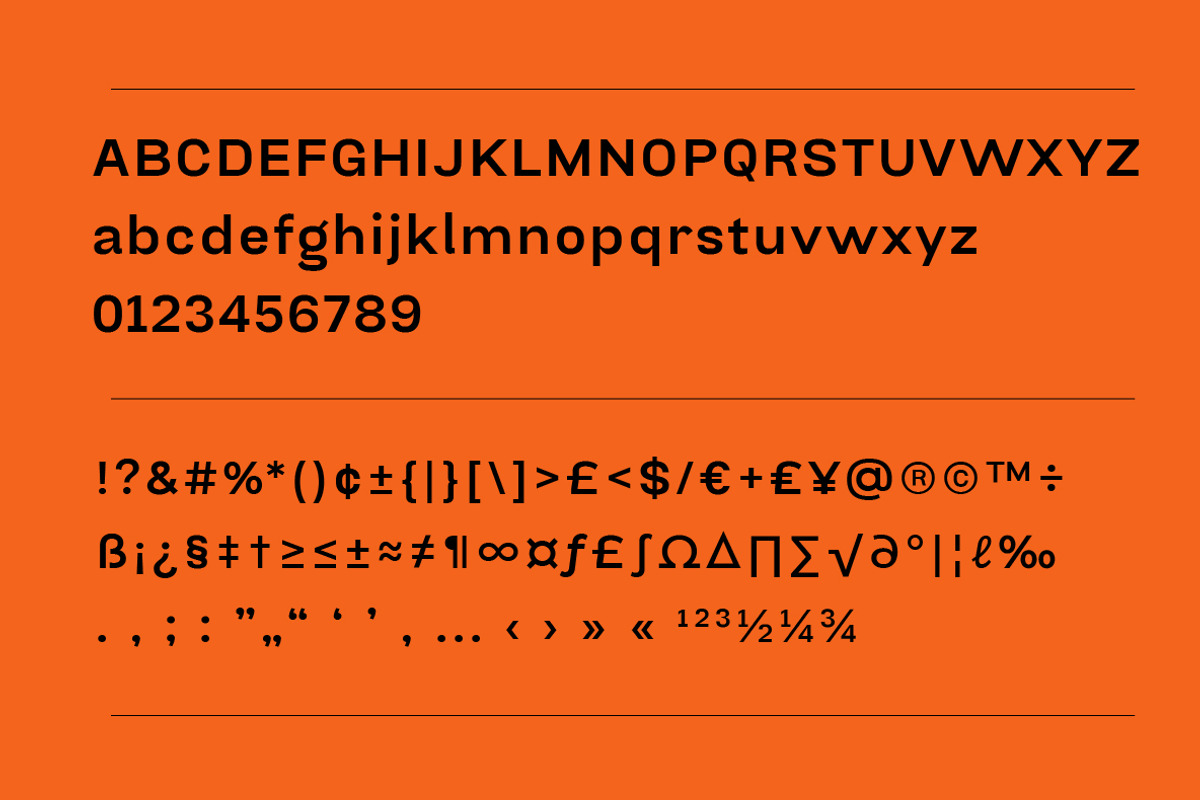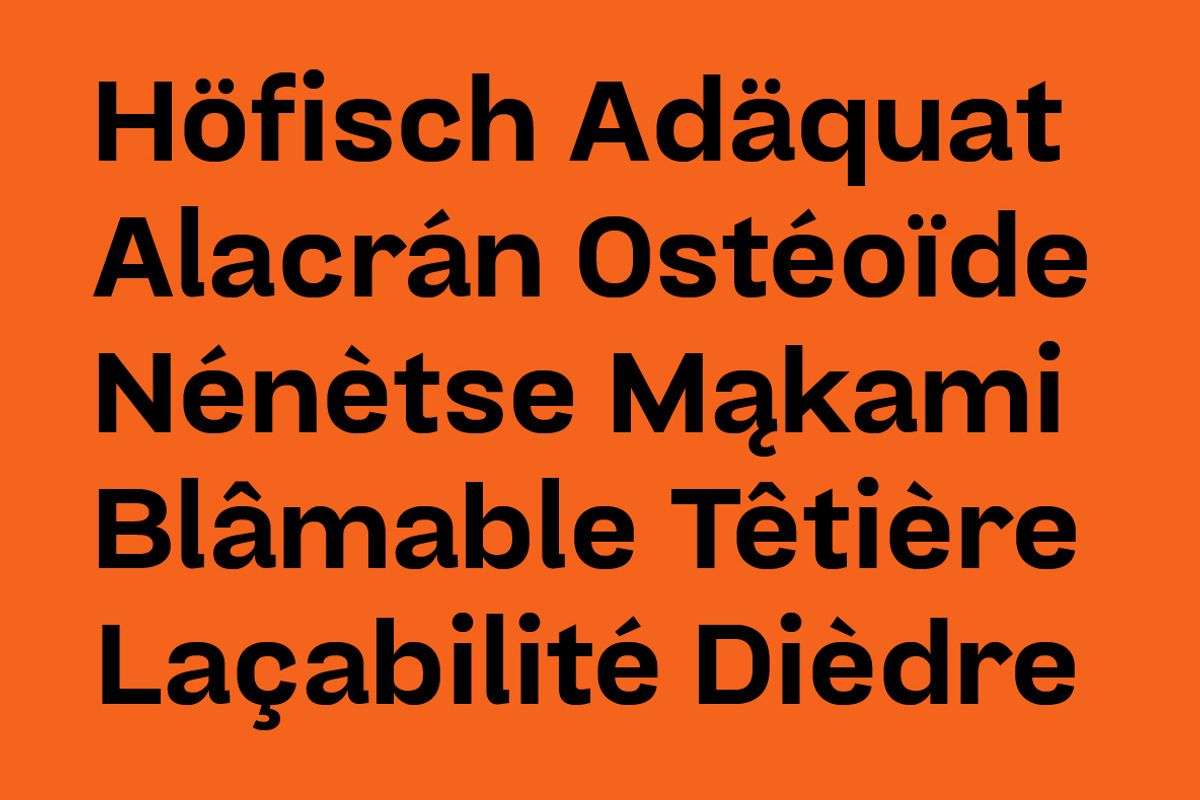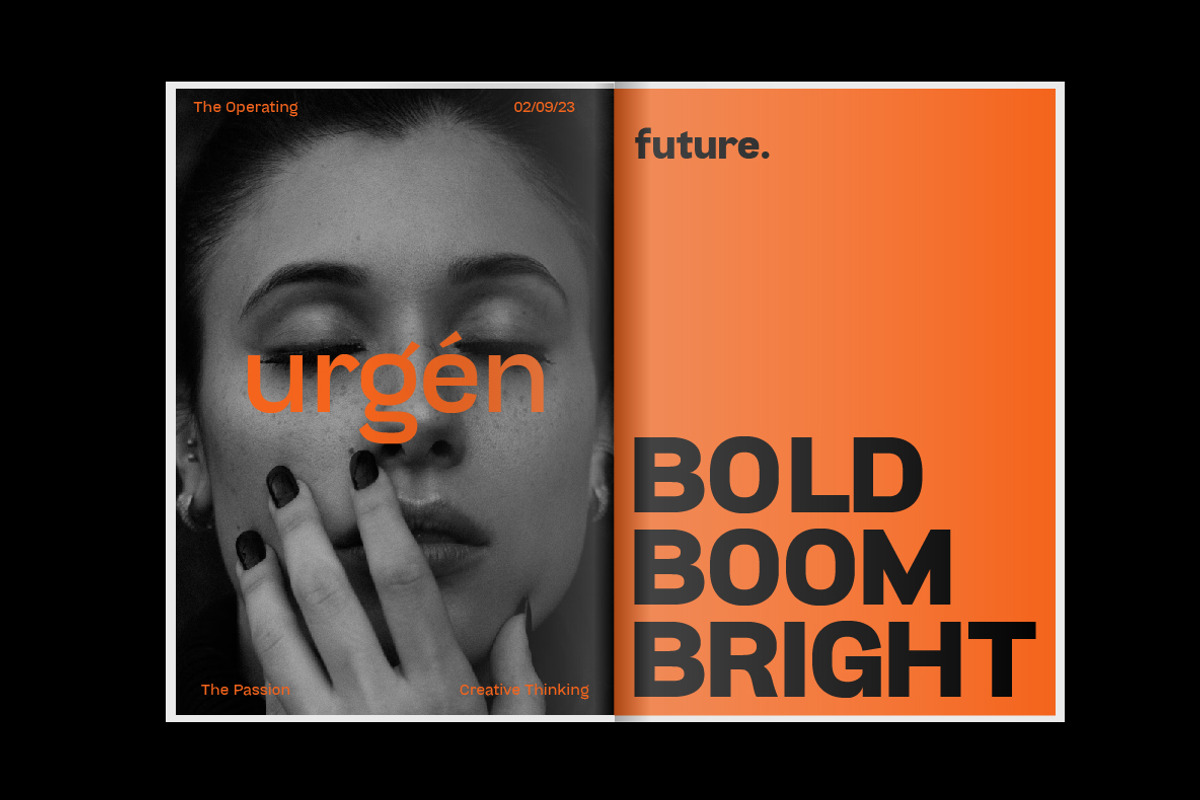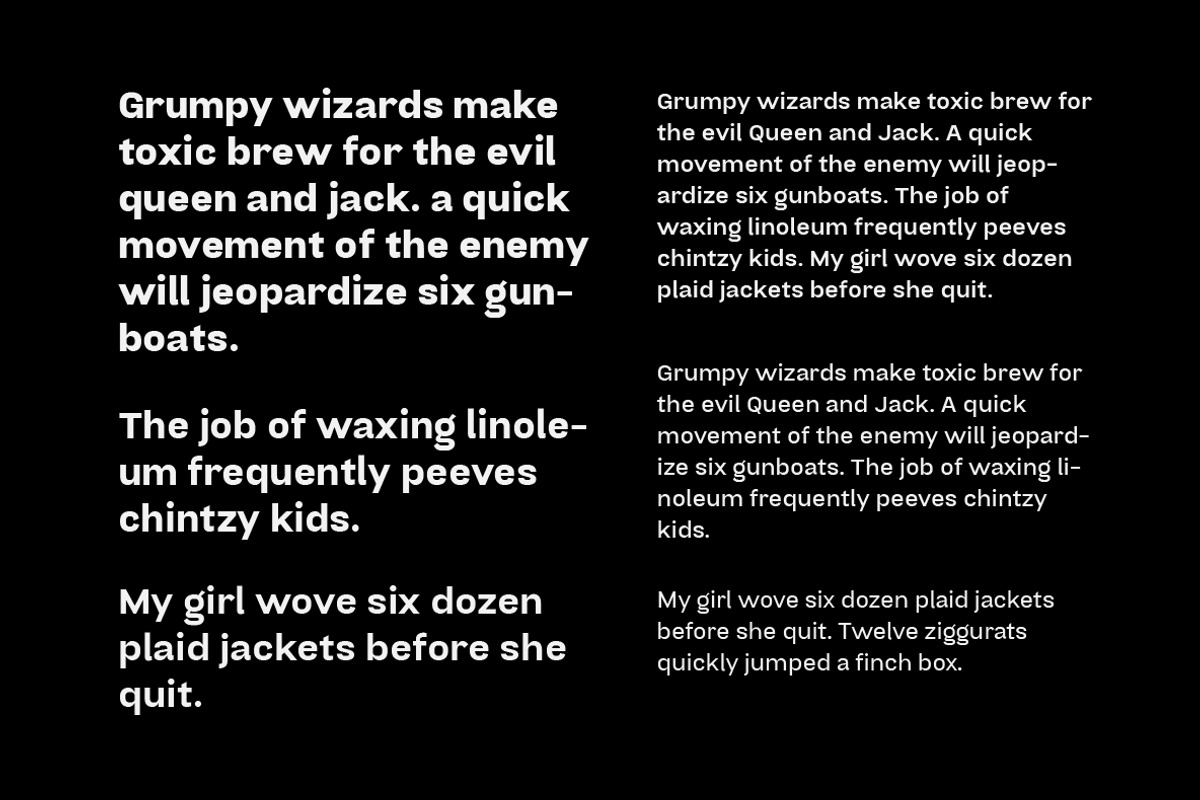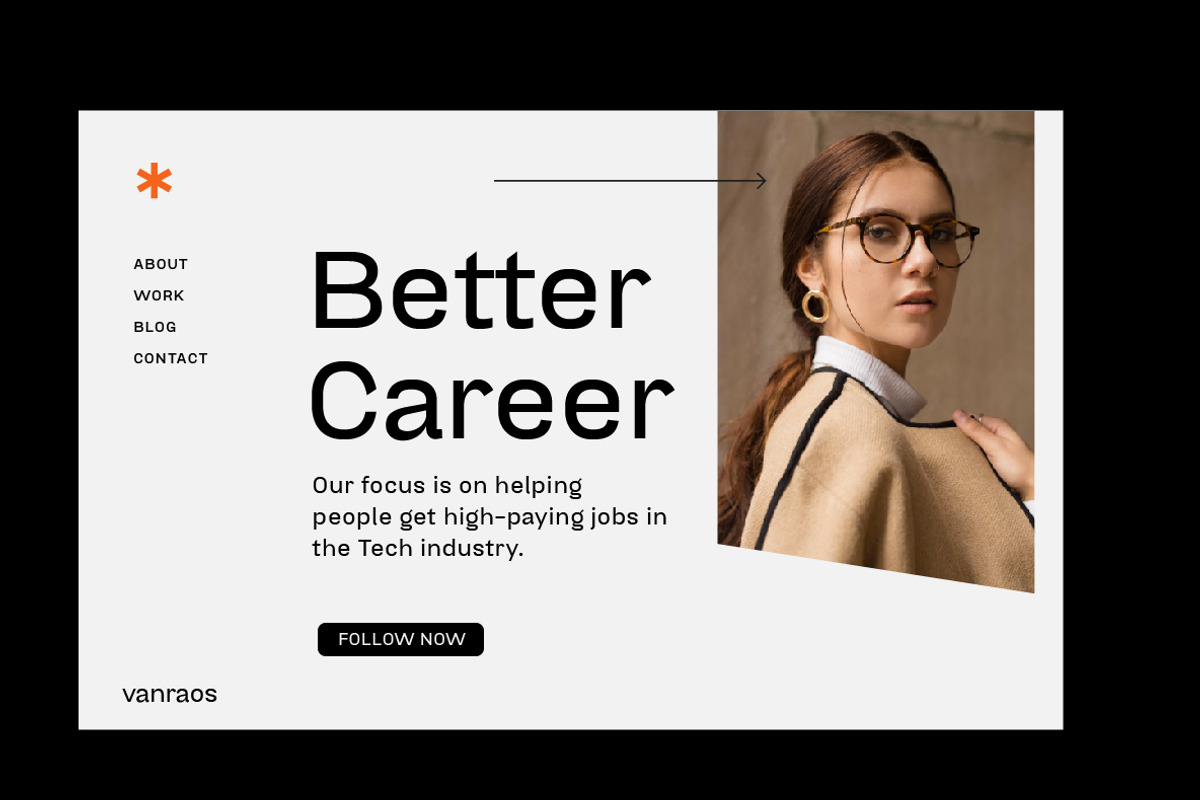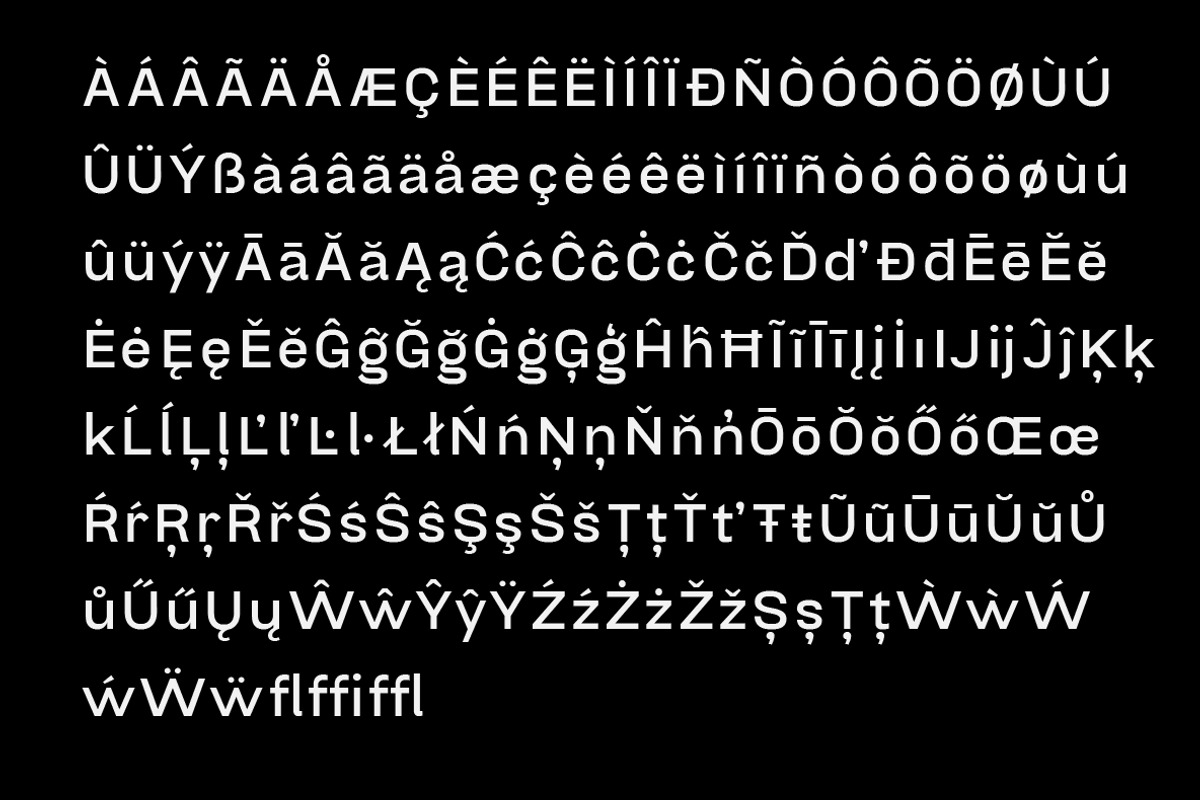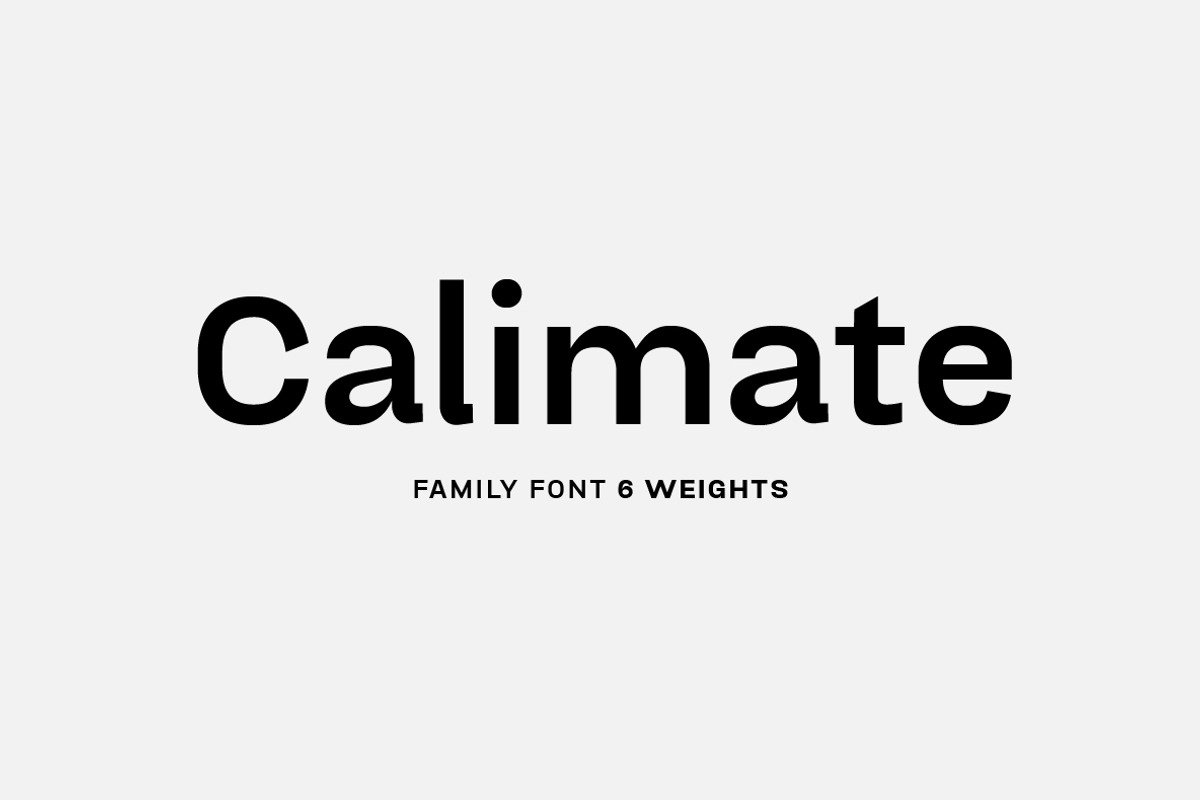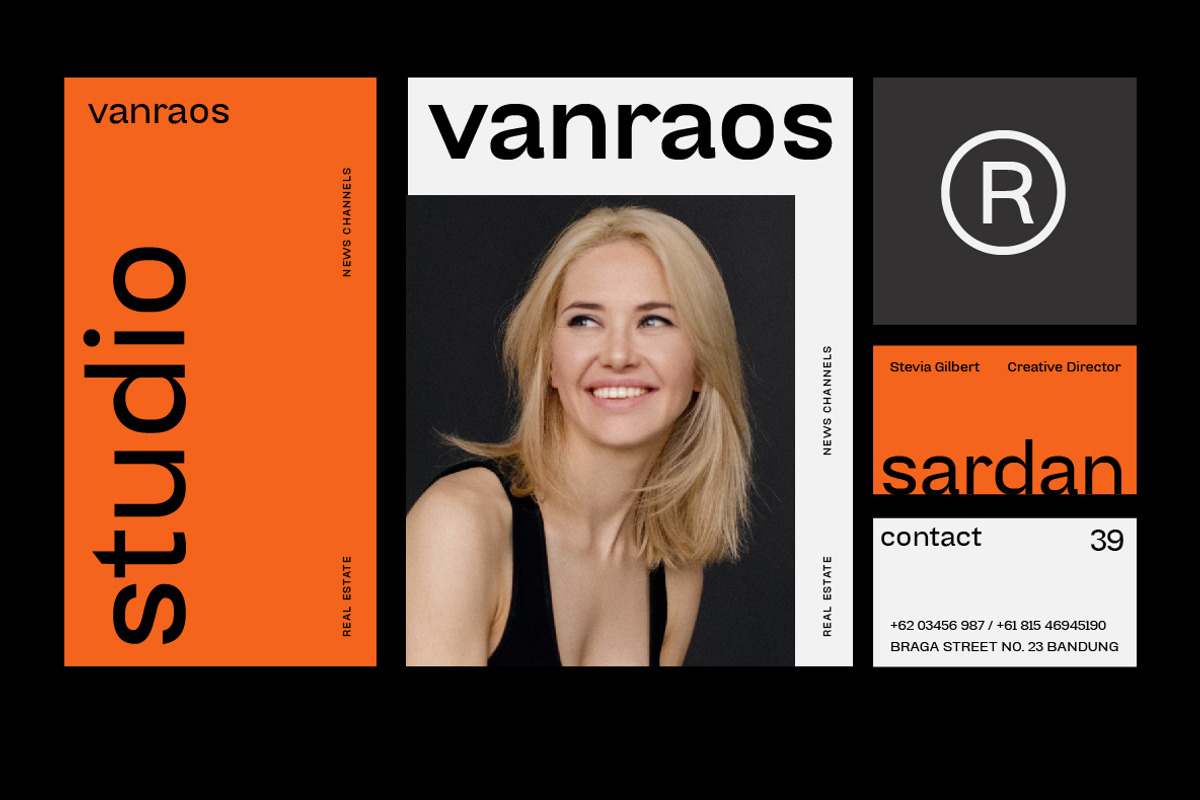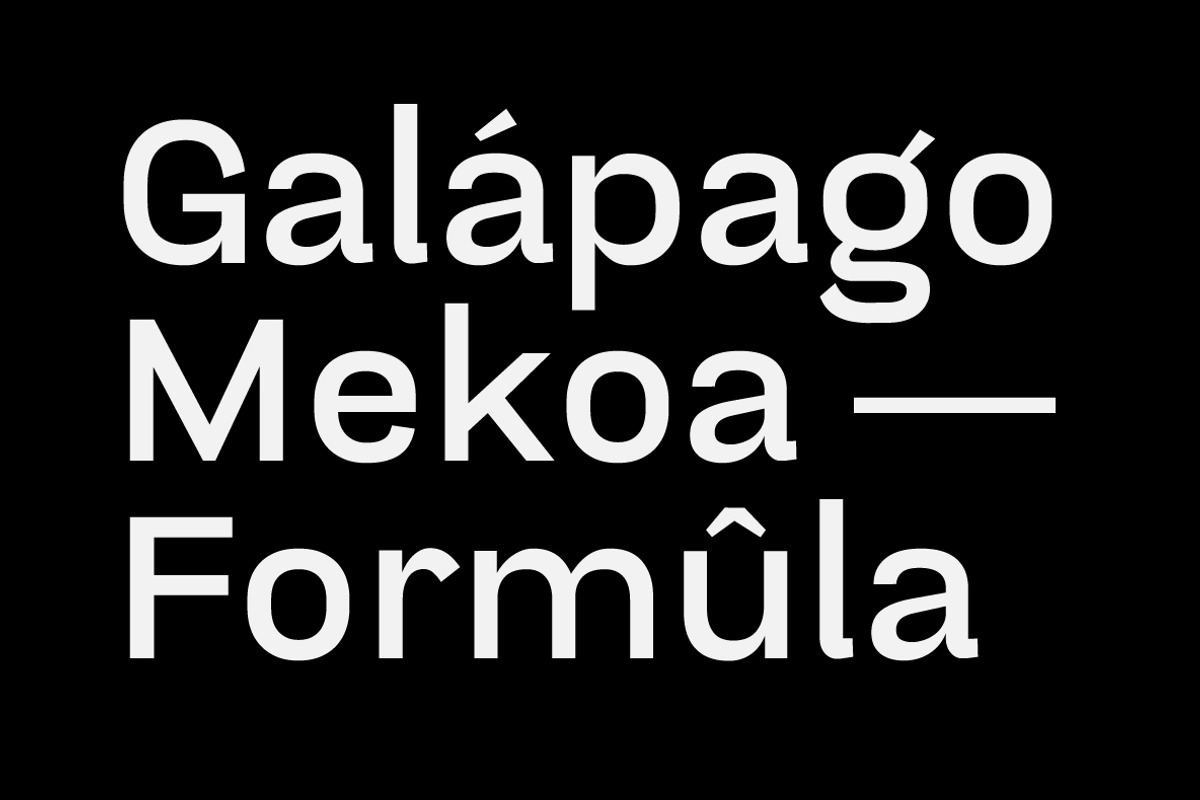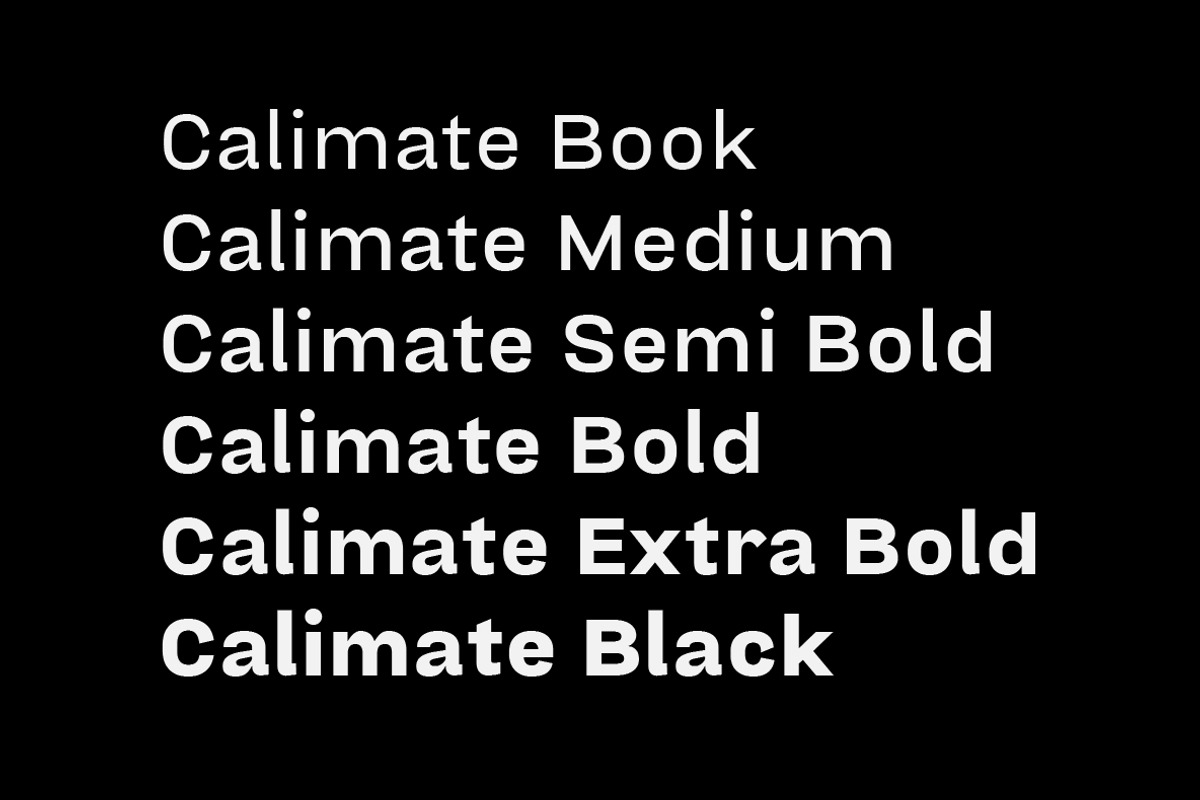
Calimate Family Fonts
Calimate Grotesk Sans Serif Font Family is a modern and minimalist typeface with an elegant and trendy touch. With a clean and simple design style, Calimate Grotesk can be used on a variety of projects, from editorial, digital, and print design.
Calimate Fonts has 6 weights ranging from book to black so you can adapt it to any design project. Overall, the Calimate Grotesk Sans Serif Font Family is a perfect choice for designers looking for a modern and trendy look.